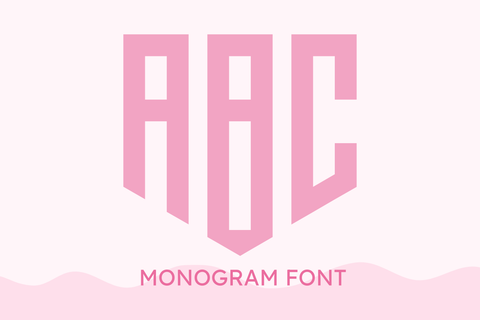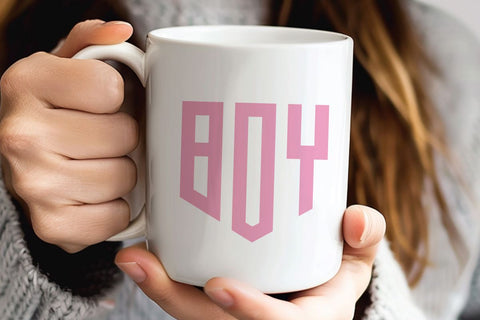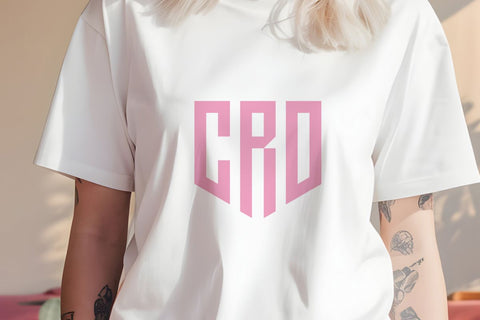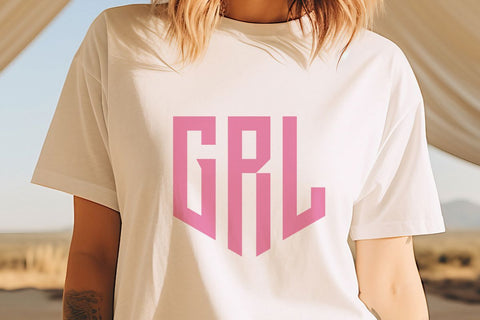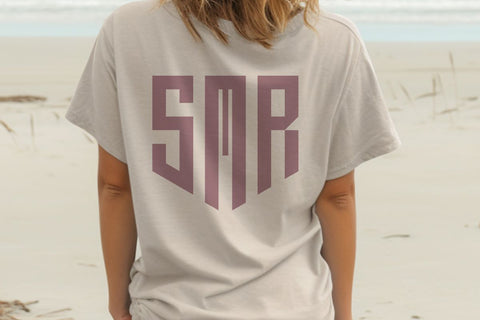
Monogram Font
Monogram is a cool and attractive monogram font display. This font is very suitable for creative craft needs such as t-shirts, logos, labels, stickers, embroidery, vinyl, necklaces, earrings, and other ideas